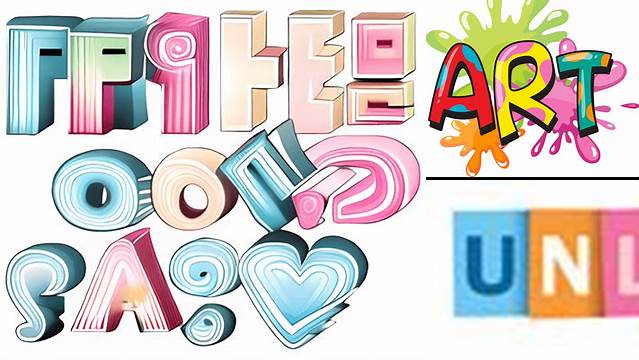
Free Word Art Font Design: Download Now
Hey guys! Ever wanted to jazz up your projects with some seriously cool text effects? Well, you're in the right place! Today, we're diving headfirst into the awesome world of word art font design, exploring how you can get your hands on some amazing free downloads and transform your creative visions into reality. Whether you're a seasoned designer or just starting out, word art is a fantastic way to add a unique touch to anything from social media posts to presentations and everything in between. We'll be covering everything you need to know to get started, including where to find the best free resources, how to use them, and even some tips and tricks to make your word art stand out from the crowd. So, buckle up, because we're about to embark on a creative journey filled with fonts, colors, and endless possibilities. Let's get this show on the road and discover the magic of word art!
What is Word Art Font Design, and Why Should You Care?
So, what exactly is word art font design? Simply put, it's the art of creatively manipulating text to produce visually stunning and engaging designs. It goes beyond your basic typed-out words and ventures into the realm of artistic expression, allowing you to transform plain text into eye-catching graphics. Think about those awesome quotes you see on Instagram, the cool titles on YouTube thumbnails, or the striking headings in a magazine. They're all examples of word art at work! And the best part? You don't need to be a professional artist to create your own word art masterpieces. With the right tools and a little bit of creativity, you can easily design word art that grabs attention and conveys your message in a memorable way.
But why should you care about word art? Well, in today's visually-driven world, grabbing attention is half the battle. Whether you're trying to promote your business, share your thoughts, or simply add a personal touch to your projects, word art can make all the difference. It helps you communicate your message more effectively, making it more likely that people will stop, look, and listen. Word art adds personality, style, and visual interest to your content, making it more appealing and shareable. And let's be honest, who doesn't love a beautifully designed quote or an inspiring message? Word art allows you to turn words into art, elevating your content from the mundane to the extraordinary. So, whether you're a blogger, a social media enthusiast, a business owner, or just someone who loves to create, mastering the art of word art is a valuable skill that can help you make a lasting impression.
Furthermore, mastering word art font design opens up a world of creative possibilities. You can experiment with different fonts, colors, shapes, and effects to create unique and personalized designs. You can use word art to enhance your brand identity, create engaging social media content, design eye-catching presentations, and even create personalized gifts. The possibilities are truly endless. Plus, with the abundance of free download resources available online, getting started is easier and more affordable than ever before. We'll explore some of these resources in detail later on, but for now, just know that you don't need to break the bank to create stunning word art. So, embrace your inner artist, unleash your creativity, and get ready to transform your words into works of art!
Finding the Best Free Word Art Resources: Your Toolkit Essentials
Alright, let's get down to brass tacks and talk about the nitty-gritty: where to find those amazing free word art resources! Fortunately, the internet is overflowing with options, from font websites to online design tools, all offering a treasure trove of resources to fuel your creative fire. Let's dive into some of the essentials that will become your go-to tools for creating stunning word art. First up, font websites. These are your gateways to a vast library of fonts, each with its unique style and personality. Websites like Google Fonts, Font Squirrel, and DaFont offer a wide selection of free fonts that you can download and use in your designs. Remember to check the license of each font to ensure it's free for your intended use (commercial or personal). You'll find everything from elegant scripts to bold display fonts, allowing you to choose the perfect typeface to match your message and style. Experiment with different fonts to see which ones resonate with you and best represent your brand or project.
Next, let's talk about online design tools. These are your all-in-one platforms where you can bring your word art visions to life. Canva is a popular choice, known for its user-friendly interface and extensive library of templates, fonts, and design elements. With Canva, you can easily create word art designs, even if you have no prior design experience. You can customize your designs by adding colors, backgrounds, and other visual effects. Other great options include PicMonkey and Adobe Spark, both offering similar features and functionalities. These tools are usually free to use, with optional paid subscriptions for more advanced features. These design tools often include pre-designed word art templates, saving you time and effort. Then there are free software options such as Inkscape, and GIMP, which are powerful, free and open-source alternatives to Adobe products. Learning the basics of these tools will provide more control and flexibility to tailor your designs.
Mastering the Art: Tips and Tricks for Stunning Word Art Designs
Now that we've covered the essential resources, let's move on to the fun part: creating stunning word art designs! Here are some tips and tricks to help you elevate your word art from good to great. First, choose the right font. Fonts are the backbone of any word art design, so selecting the right one is crucial. Consider the message you want to convey and the overall tone of your design. Do you want to convey elegance, playfulness, or professionalism? Choose a font that reflects your desired mood. Pair fonts carefully; using too many different fonts can make your design look cluttered and unprofessional. Stick to a maximum of two or three fonts per design and ensure they complement each other.
Next up, consider the color palette. Color plays a significant role in the visual appeal of your word art. Choose colors that complement each other and reflect your brand or the overall theme of your design. Experiment with different color combinations to find what works best. Use online color palette generators like Coolors or Adobe Color to find inspiring color schemes. Also, think about how the color of your text contrasts with the background. Ensure your text is easy to read against the background. Experiment with color gradients and other effects to add depth and visual interest to your designs. Moreover, experiment with layout and composition. The way you arrange your text is essential. Consider the hierarchy of your text, emphasizing the most important words or phrases. Experiment with different layouts, such as stacking words, arranging them in a circle, or using a diagonal arrangement. Use negative space (the empty space around your text) to create balance and visual interest. Don't be afraid to experiment with different shapes and forms to create unique and eye-catching designs. Also, try adding visual effects. Enhance your word art by adding visual effects such as drop shadows, outlines, and textures. These effects can add depth, dimension, and visual interest to your designs. Use these effects sparingly to avoid overwhelming your audience. Experiment with different effects to find what works best for your design. Consider using a subtle texture or gradient background to add visual interest without distracting from the text.
Finally, practice and experiment. The best way to improve your word art skills is to practice regularly and experiment with different techniques. Don't be afraid to try new things and push your creative boundaries. Learn from your mistakes and keep refining your designs. Look for inspiration from other designers and word art examples. Analyze what works well and incorporate those techniques into your designs. The more you practice, the more confident and skilled you will become. Embrace the learning process and have fun creating! Word art is all about expressing yourself creatively, so let your imagination run wild and enjoy the journey!
Conclusion: Unleash Your Inner Artist
There you have it, guys! A complete guide to word art font design, filled with tips, tricks, and the best free download resources available. We've covered everything from the basics of word art to finding the perfect fonts and design tools. We also covered the design process, how to create visually stunning word art. Now it's your turn to put your knowledge to the test and start creating! Remember, the most important thing is to have fun and let your creativity flow. Don't be afraid to experiment, make mistakes, and learn along the way. With a little practice and the right resources, you can transform your words into works of art. So, go forth, create, and share your amazing word art with the world. We can't wait to see what you come up with!